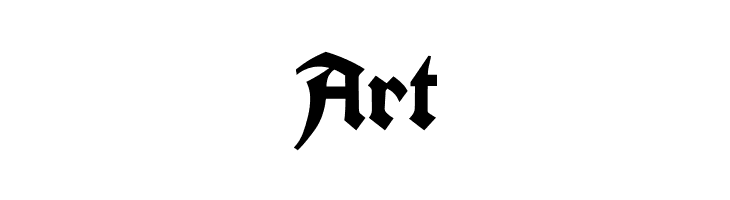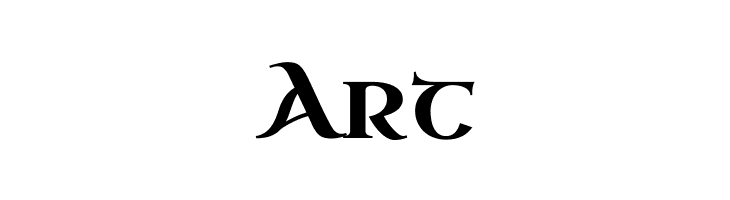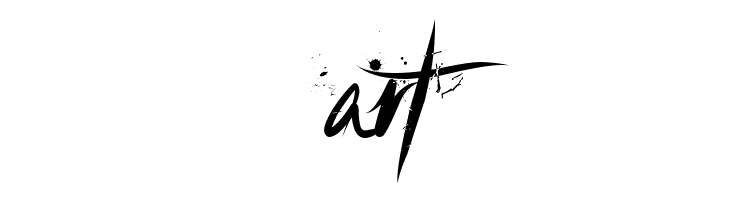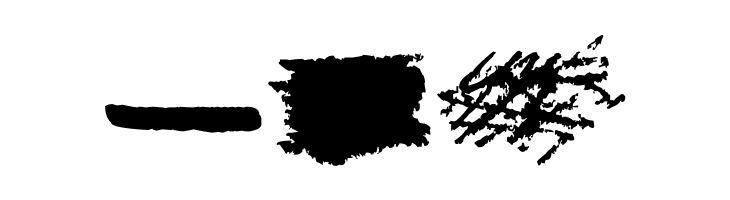
A playful, handwritten font with smooth, rounded strokes and a casual style.
A medieval-inspired font with sharp angles and smooth curves, exuding classic elegance.
A classic, medieval-style font with rounded characters and pointed serifs.
Abstract brushstroke marks with no readable characters.
An expressive and dynamic script font with fluid, sweeping strokes.
A bold, textured, and expressive font with a hand-drawn style.
A dynamic and expressive script font with elegant, sweeping curves.
A textured, expressive font with dynamic brush strokes and splatter effects.
A bold Blackletter font with sharp, angular lines and a medieval aesthetic.
A bold Blackletter font with intricate, angular strokes and a medieval aesthetic.